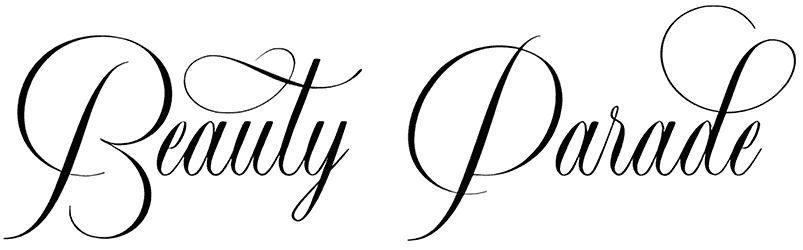
Beauty Parade Font
When you want to leave a lasting impression on your followers, this is the time you can count on a calligraphy font like Beauty Parade and create a charming visual. The delicate and smooth letterforms of the Beauty Parade font can make your project unforgettable.
Ignore the lack of numbers and punctuation marks, set this funeral font on your new fashion business card or any project you want, and enjoy the ravishing outcome with no difficulty.